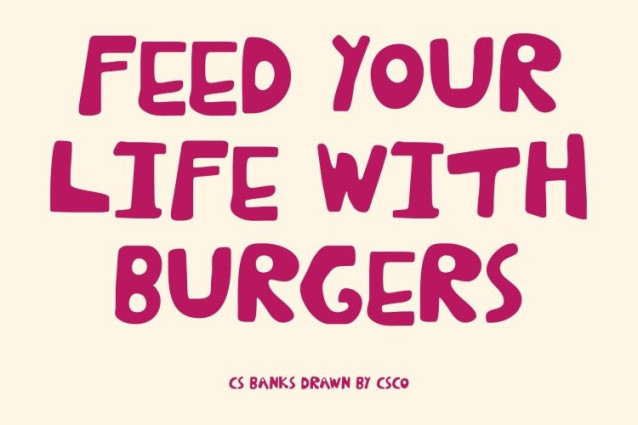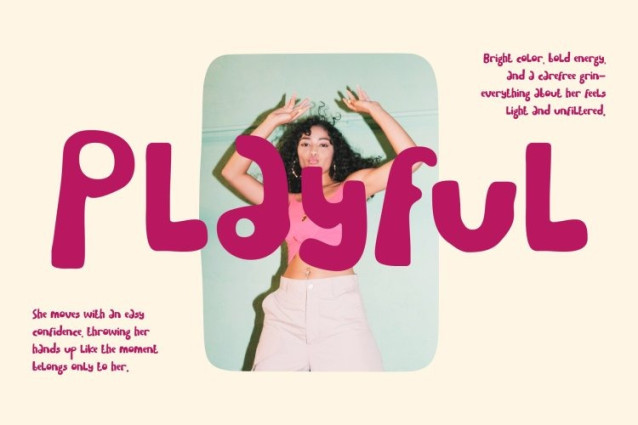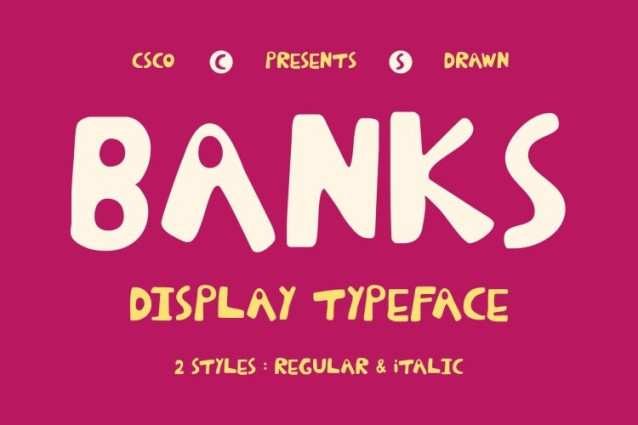
CS Banks Drawn Font
CS Banks Drawn Font This is a lively hand-drawn display font built with bold strokes and charming, geometric-inspired forms. Its friendly shapes and confident weight instantly bring a sense of fun and positivity to any design. The hand-drawn execution gives the font a natural, expressive quality, making it feel warm, youthful, and full of character.
Experimental Style for Creative Expression
Designed with an experimental spirit, this font embraces individuality and visual play. Slightly uneven strokes, quirky proportions, and dynamic letterforms enhance its handcrafted personality. Each character feels energetic and spontaneous, creating a strong sense of motion that adds excitement and visual interest to your typography.
Ideal for Youthful Branding and Casual Identities
This font shines in branding projects that aim to feel approachable, cheerful, and modern. It’s an excellent choice for lifestyle brands, kid-focused products, casual businesses, creative studios, or campaigns that celebrate fun and originality. Whether applied to logos, product labels, headlines, or taglines, this font instantly sets a bright and welcoming tone.
Perfect for Fun Display and Digital Use
From greeting cards and invitations to posters, social media graphics, and playful digital content, this font delivers bold personality with a handmade touch making every design feel engaging, expressive, and joyfully alive.